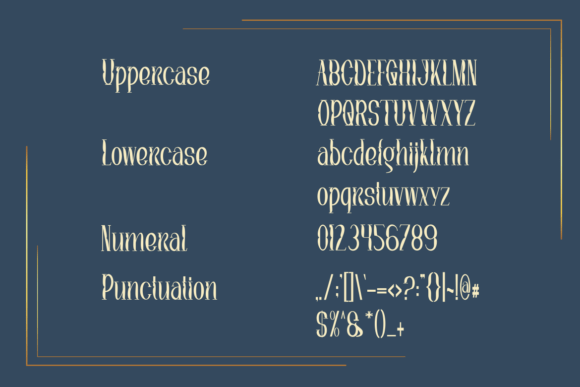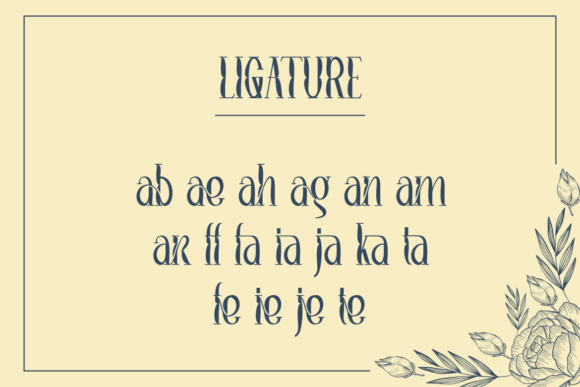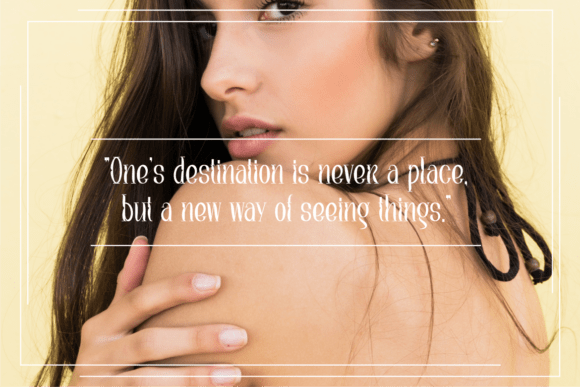
Introduction to Kanjeng Font
Have you ever found yourself pouring over a beautiful design, wishing you could capture the essence of its elegance? Perhaps it’s a high-end invitation, a luxury brand’s logo, or a stunning editorial piece. Whatever the creative project may be, the right font can make all the difference. For designers, finding that perfect font can be a game-changer – and that’s where the Kanjeng Font comes in.
With its refined and sophisticated serif design, the Kanjeng Font is a valuable resource for designers seeking high quality typography. Its unique ligatures and flowing strokes bring a timeless beauty to any project, making it perfect for luxury branding, editorial design, and high-end invitations. Whether you’re working on a design project with a transparent background or simply need a reliable font for your next creative venture, the Kanjeng Font is definitely worth exploring.
Key Features of Kanjeng Font
- High-quality design resource suitable for creative projects
- Transparent background, ideal for projects requiring a clean and minimalist design
- Unique characteristics and stylish design elements make it a popular choice among designers
Honest Review: Kanjeng Font
As a designer, I’m always on the lookout for high-quality design resources that can elevate my creative projects. Recently, I came across the Kanjeng Font, and I was impressed with its unique design.
One of the things that stands out about the Kanjeng Font is its versatility. The font comes in a variety of weights, making it suitable for a wide range of design applications. From headings to body text, the Kanjeng Font is a great choice for any project.
Here are some of the things that I like about the Kanjeng Font:
- ✨ Unique design that adds a touch of elegance to any project
- ✨ High-quality design that’s perfect for print and digital applications
- ✨ Transparent background, making it easy to use on any design background
- ⚠️ Limited language support, which may be a issue for designers who need to work with multiple languages
- ⚠️ Some users may find the font too decorative, making it difficult to read at small sizes
Overall, I’m impressed with the Kanjeng Font. While it may have some limitations, its unique design and high-quality construction make it a valuable addition to any designer’s toolkit.
Kanjeng Font is a high-quality design resource ideal for creative projects. It offers a unique and stylish aesthetic that can elevate your work to the next level.
To get the most out of Kanjeng Font, use it with a transparent background to create a striking visual effect. Experiment with different font sizes and colors to find the perfect combination for your project.
Kanjeng Font is ideal for:
- Branding and identity projects
- Social media graphics and advertising
- Presentations and reports
- Editorial and publishing projects